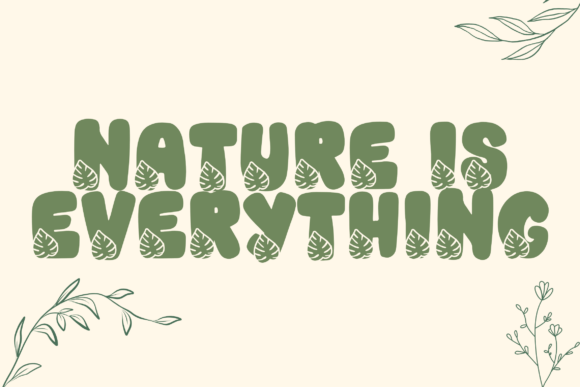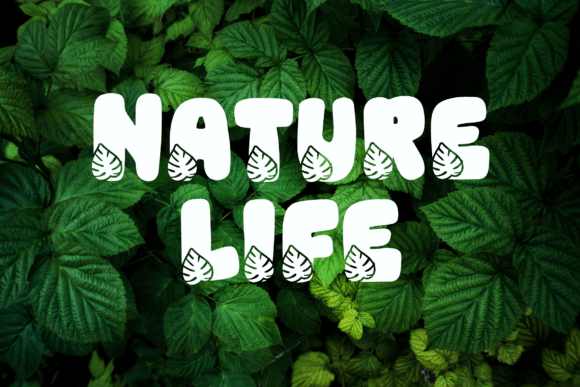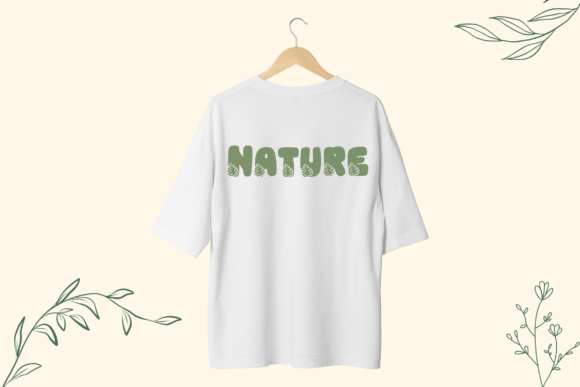
Introduction to Retro Leaves Font
Encapsulate your design journey with the beguiling and eco-conscious charm of Retro Leaves Font.
Marrying classic allure with verdant nuances, this typeface presents a unique hybrid of retro charm and botanical inspiration Its chic, curvilinear forms, adorned with leaf motifs, seamlessly navigate between yesteryear antiquity and contemporary design.
Key Features of Retro Leaves Font